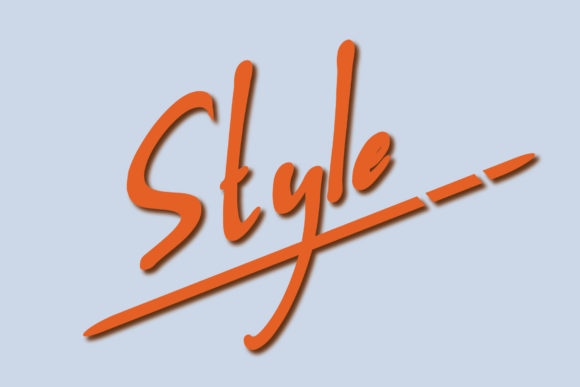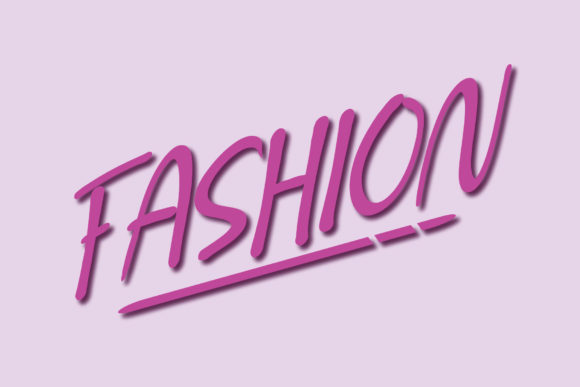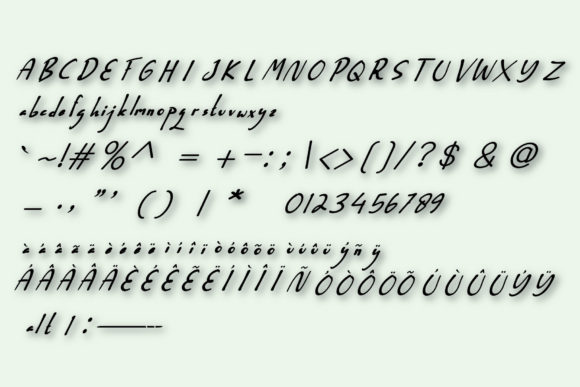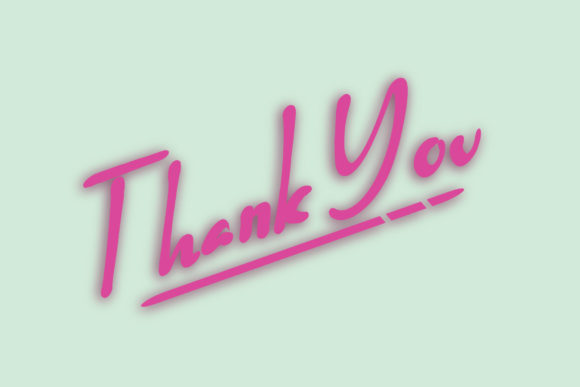
Introduction to New Version Font
Have you ever stared at a blank canvas, searching for the perfect design element to bring your creative project to life? The frustration of finding the right font can be overwhelming, especially when you’re working on a high-quality design that requires precision and elegance.
That’s where the New Version Font comes in – a stylish and delicate font that’s sure to elevate your design to the next level. With its clean, thin, and smooth vibe, this font is the perfect design resource for any creative project. Whether you’re working on a logo, brochure, or website, the New Version Font is sure to impress.
Key Features of New Version Font
- Unique, modern design with a clean and minimalist aesthetic, perfect for branding and marketing materials.
Honest Review: New Version Font
As a designer, I’m always on the lookout for high-quality design resources that can elevate my creative projects. The New Version Font caught my attention with its sleek and modern aesthetic, making it a great addition to any design.
- ✨ High-quality font files that are crisp and clear
- ✨ Wide range of styles and weights to choose from
- ✨ Transparent background option for easy customization
- ⚠️ Limited compatibility with older software and operating systems
- ⚠️ Some users may find the font too modern or trendy
Overall, I’m impressed with the New Version Font. It’s a great design resource that can add a touch of sophistication to any creative project. While it may have some limitations, the benefits far outweigh the drawbacks. I would definitely recommend it to fellow designers looking for a high-quality font to elevate their work.
For creative projects, use the New Version Font in conjunction with other design resources, such as images and shapes. To get the most out of the font, experiment with different font sizes, colors, and styles. Common use cases include creating logos, brochures, and social media graphics.